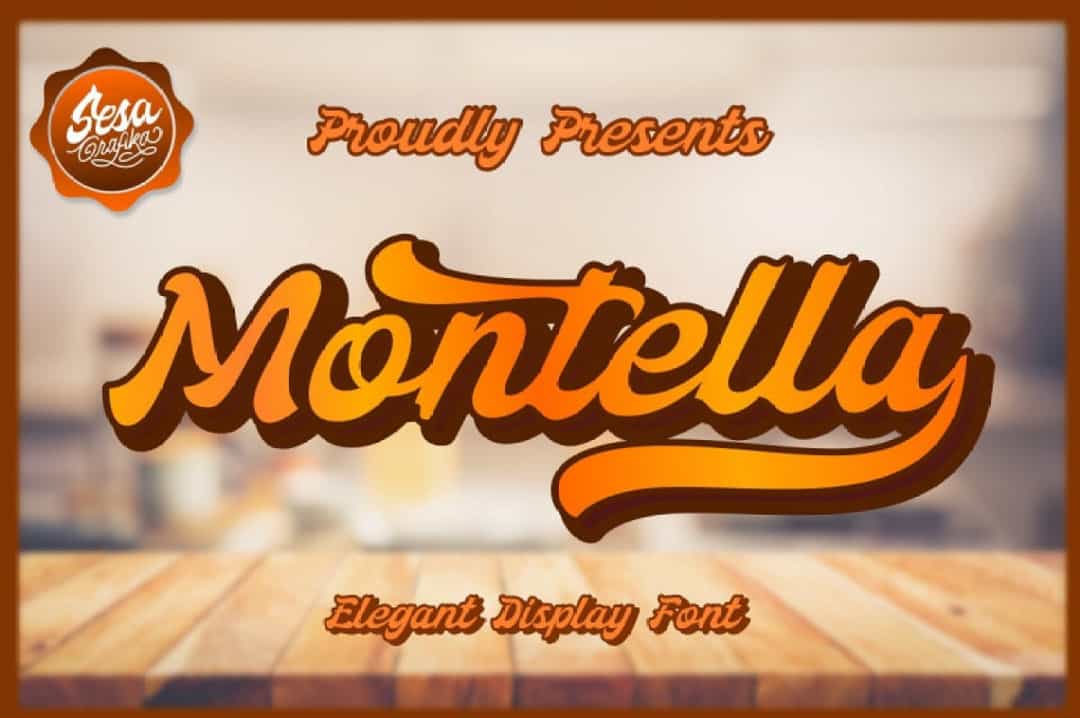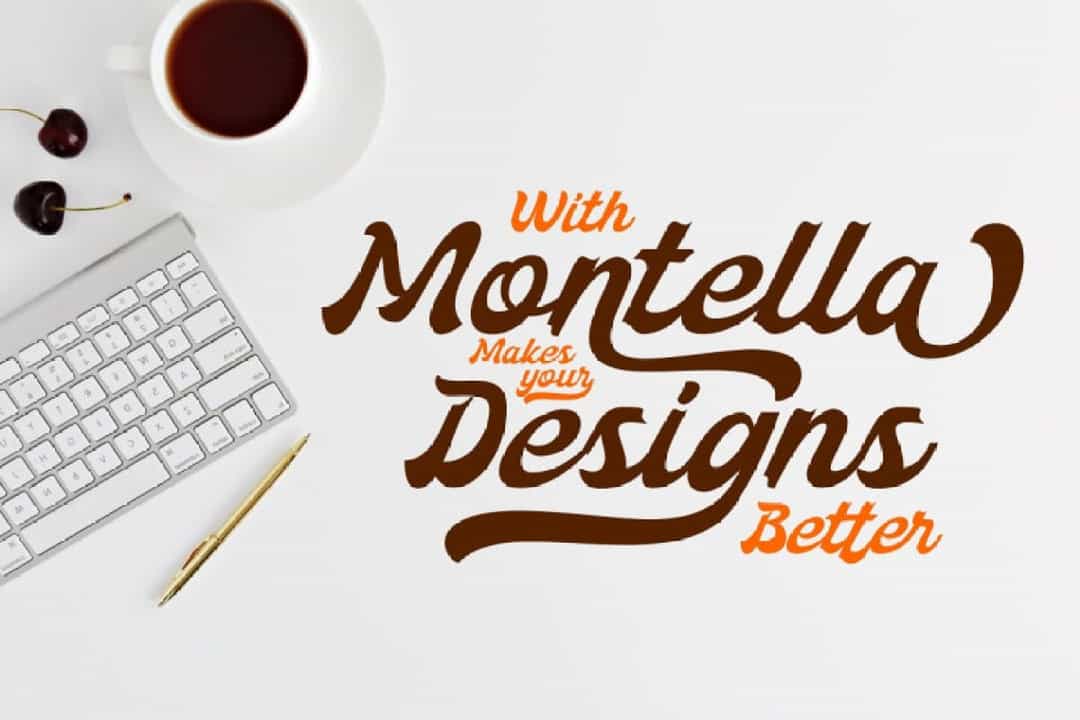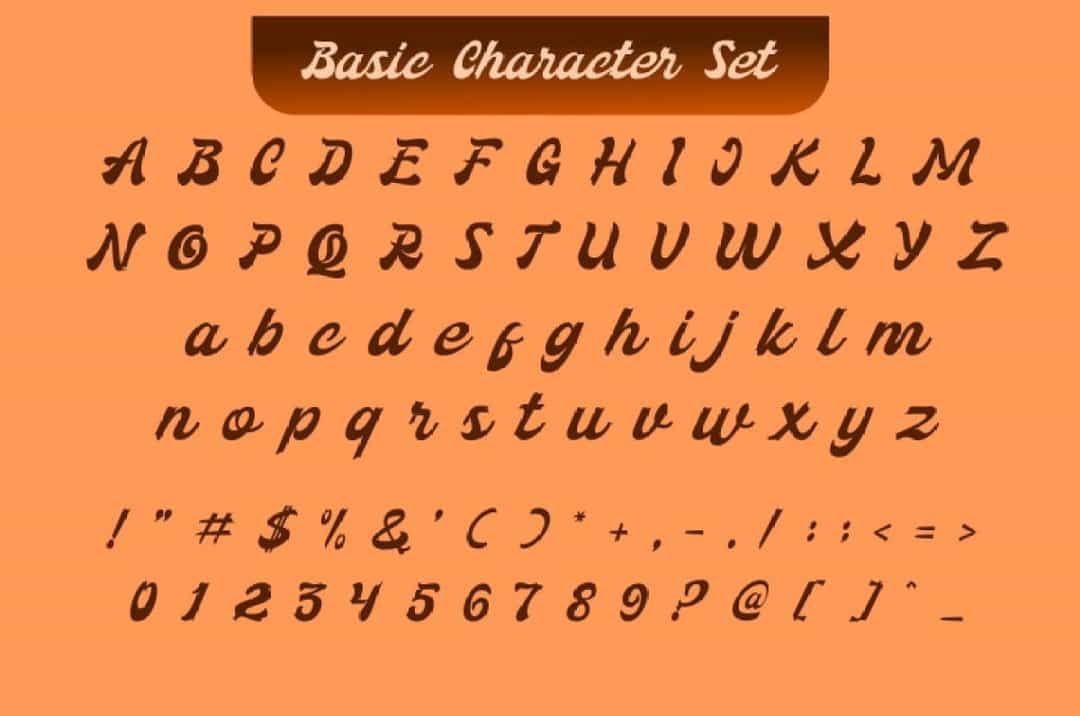
Discover Montella Font, part of the Calligraphy Display Retro collection—a versatile and unique font perfect for adding a personal touch to your projects. Download it for free and enjoy crafting designs with style, from invitations to social media posts. This font is available exclusively for personal use, giving you the freedom to create without limits. Unlock your creativity with Montella Font today!
Montella can be described as an eye-catching script font designed to add an eye-catching effect to headlines and logotypes. PUA encoded, giving you access to all characters and strokes with ease!